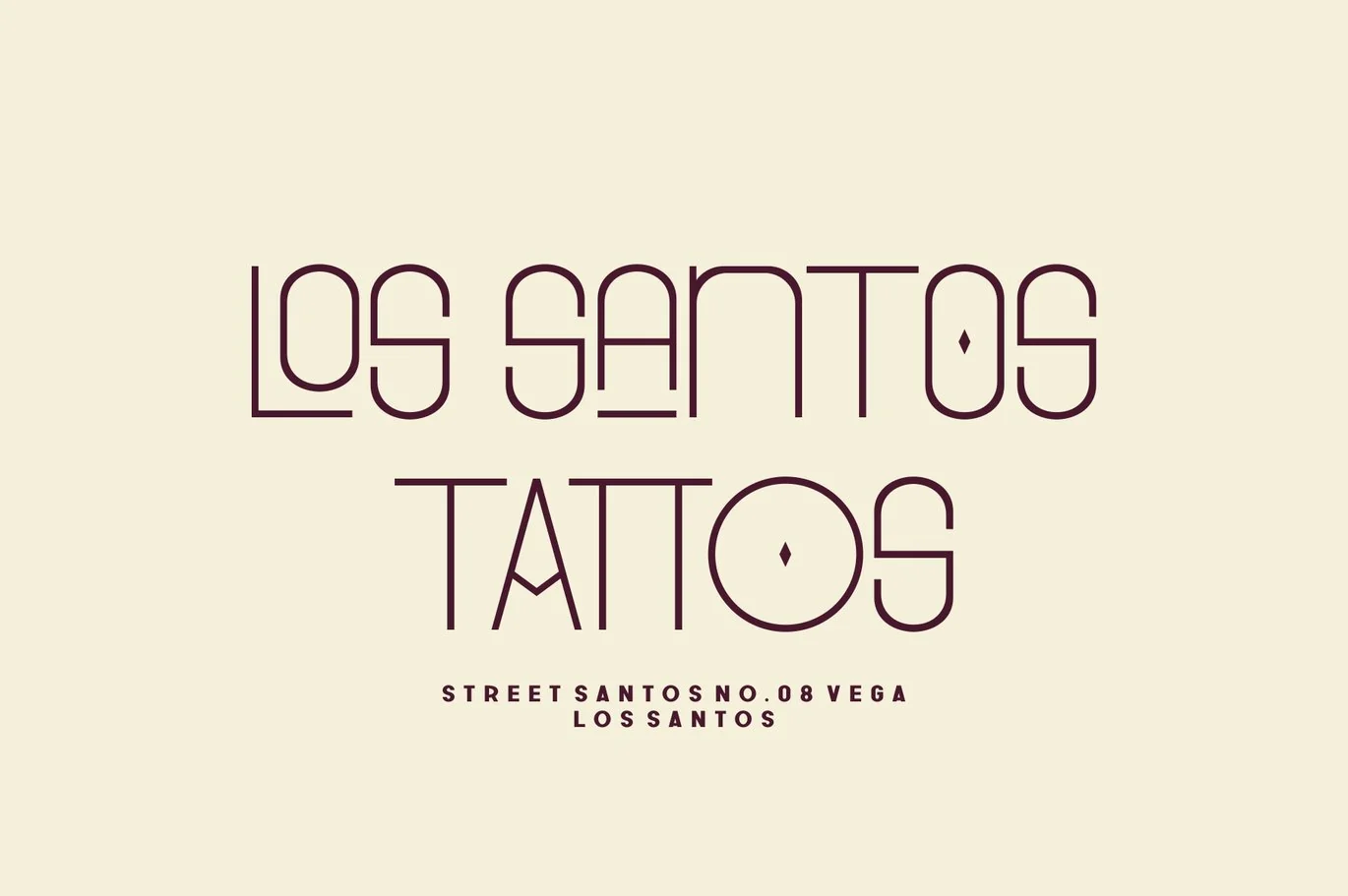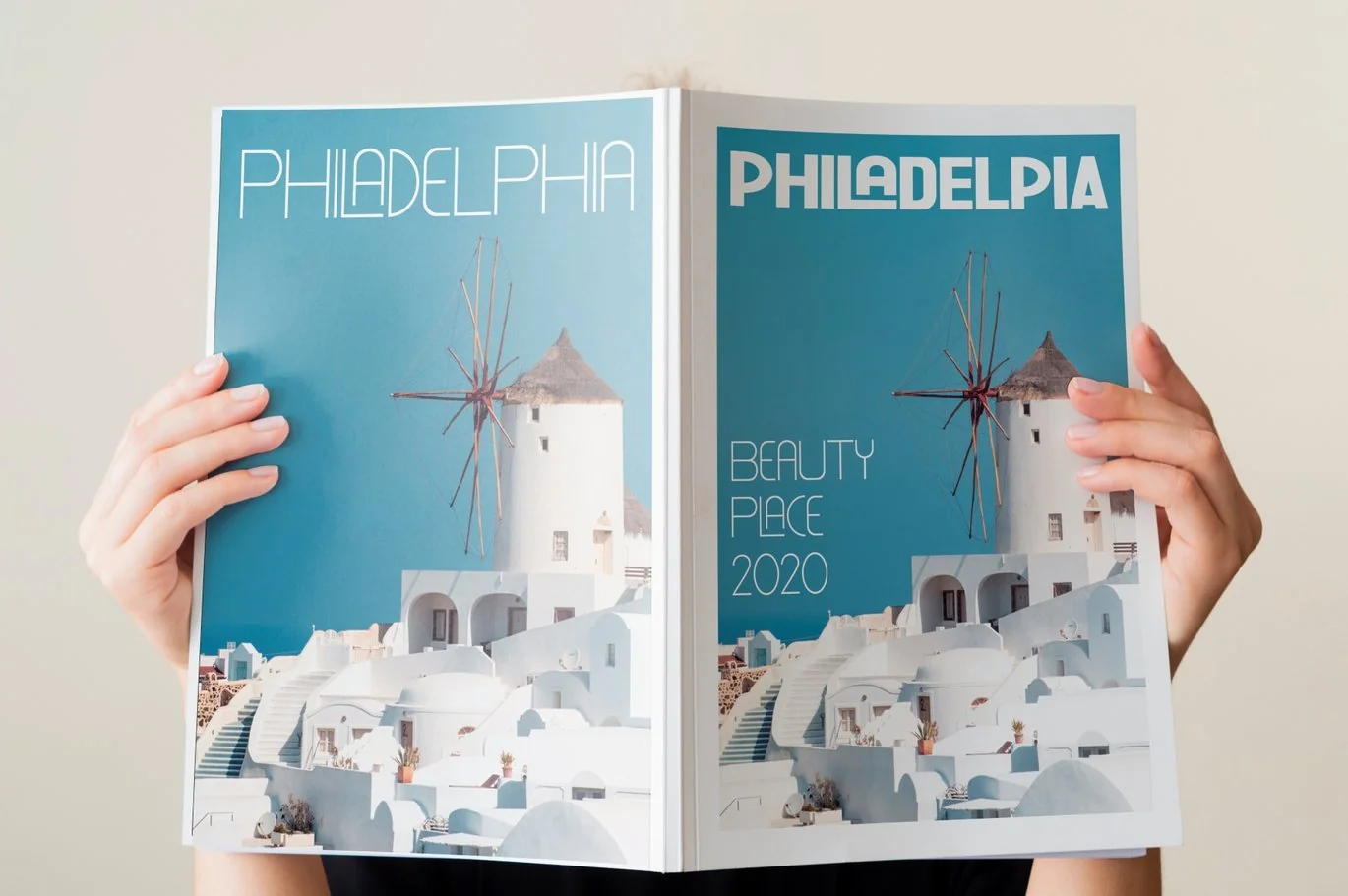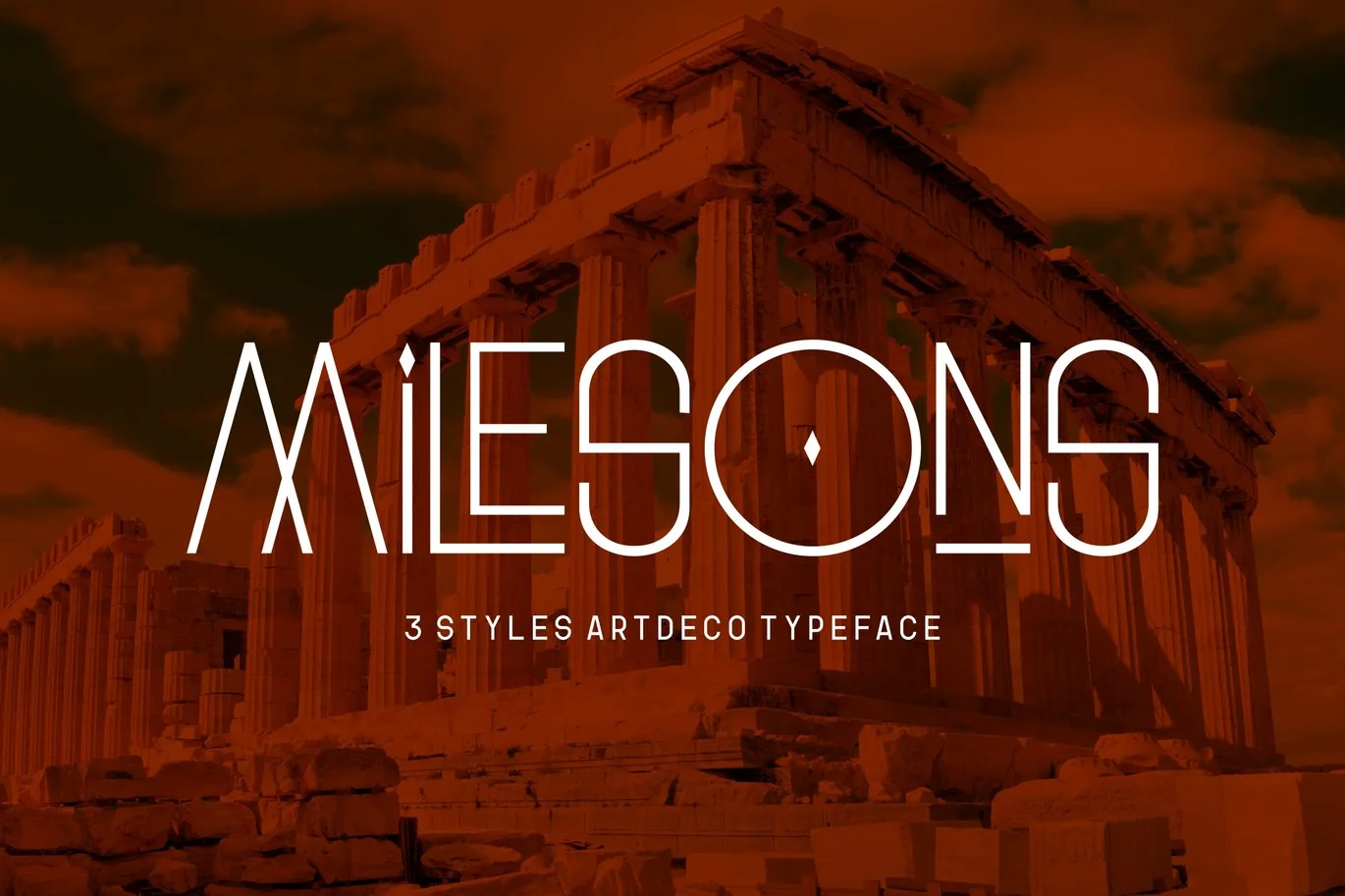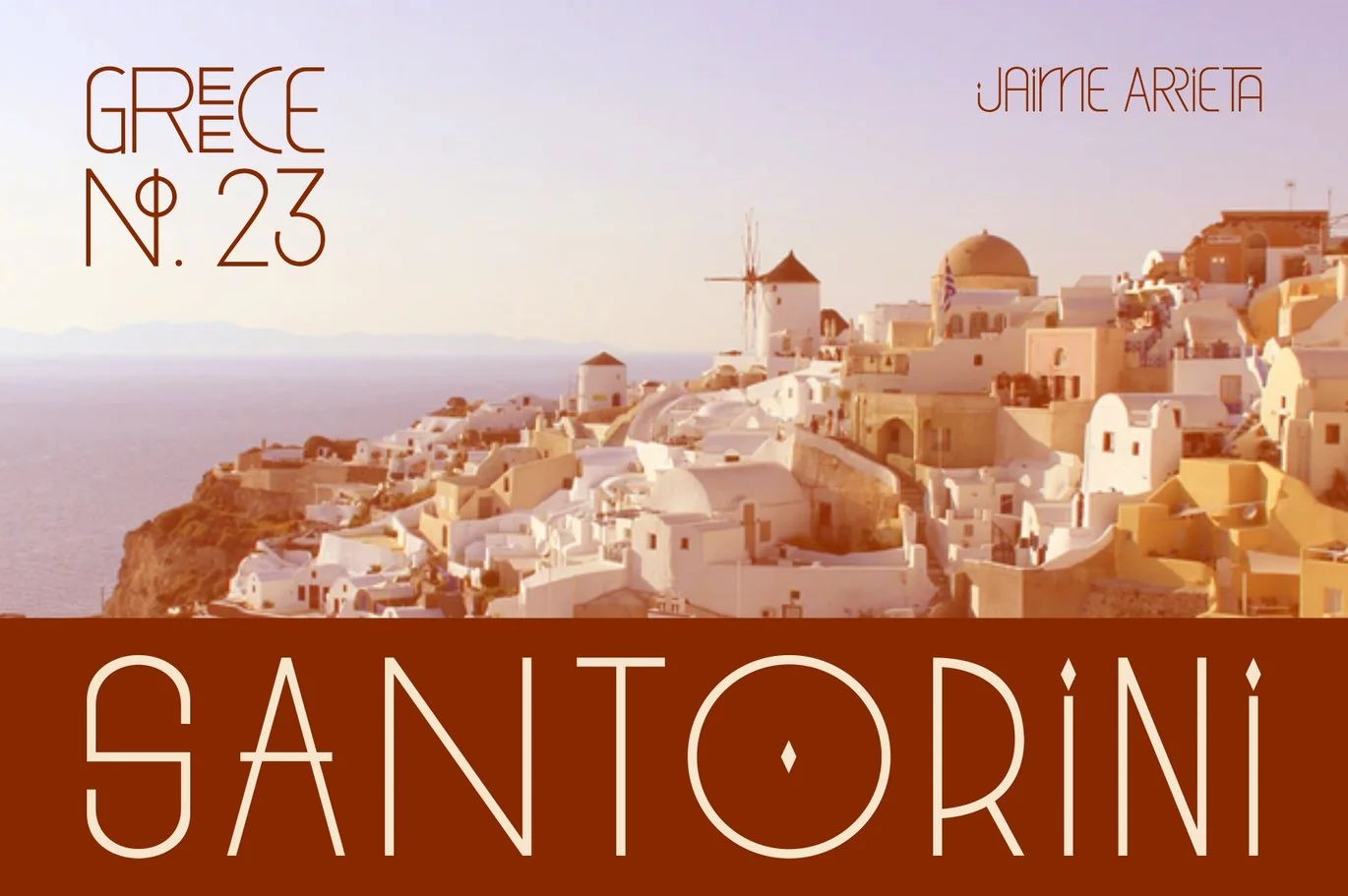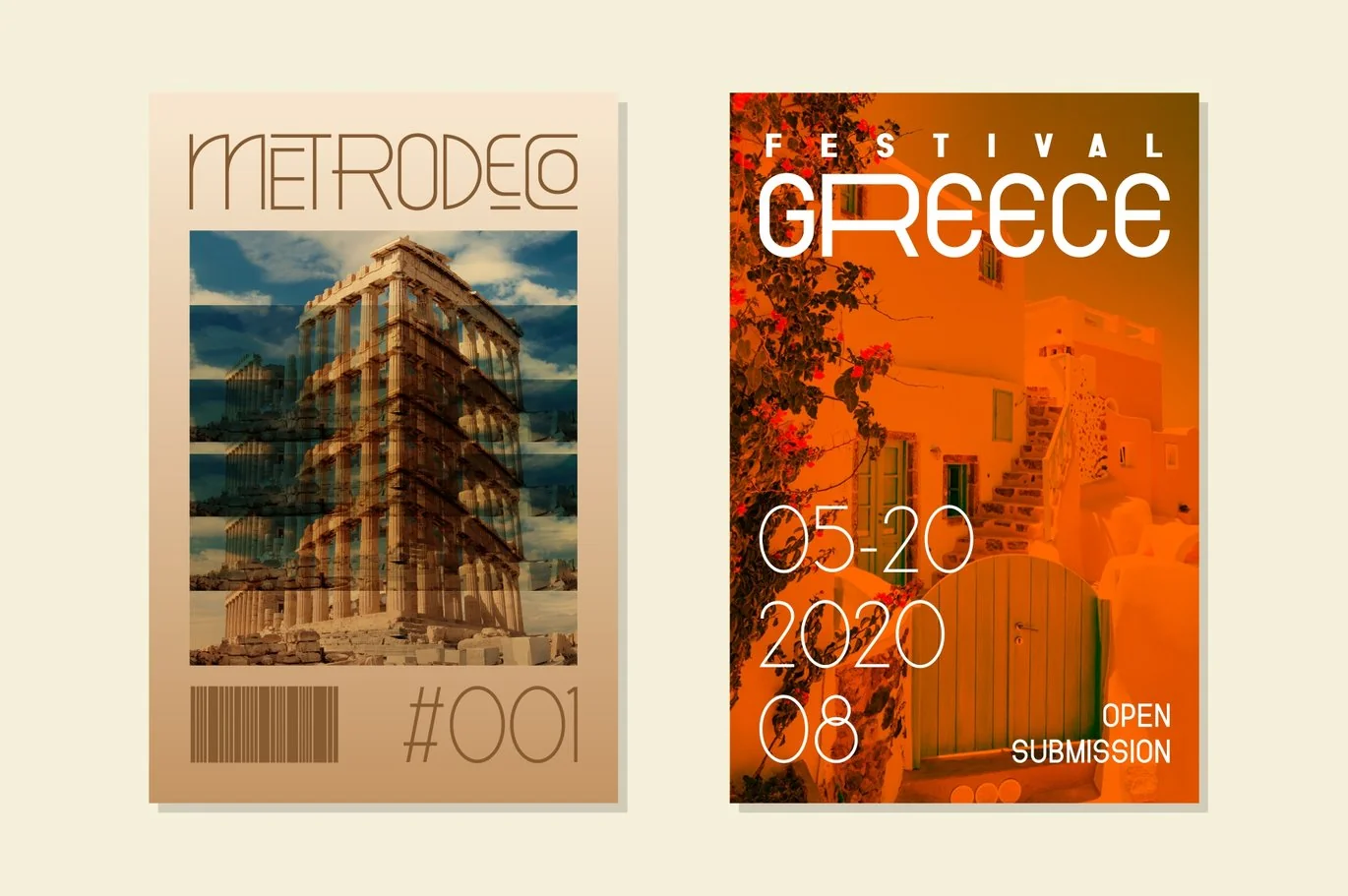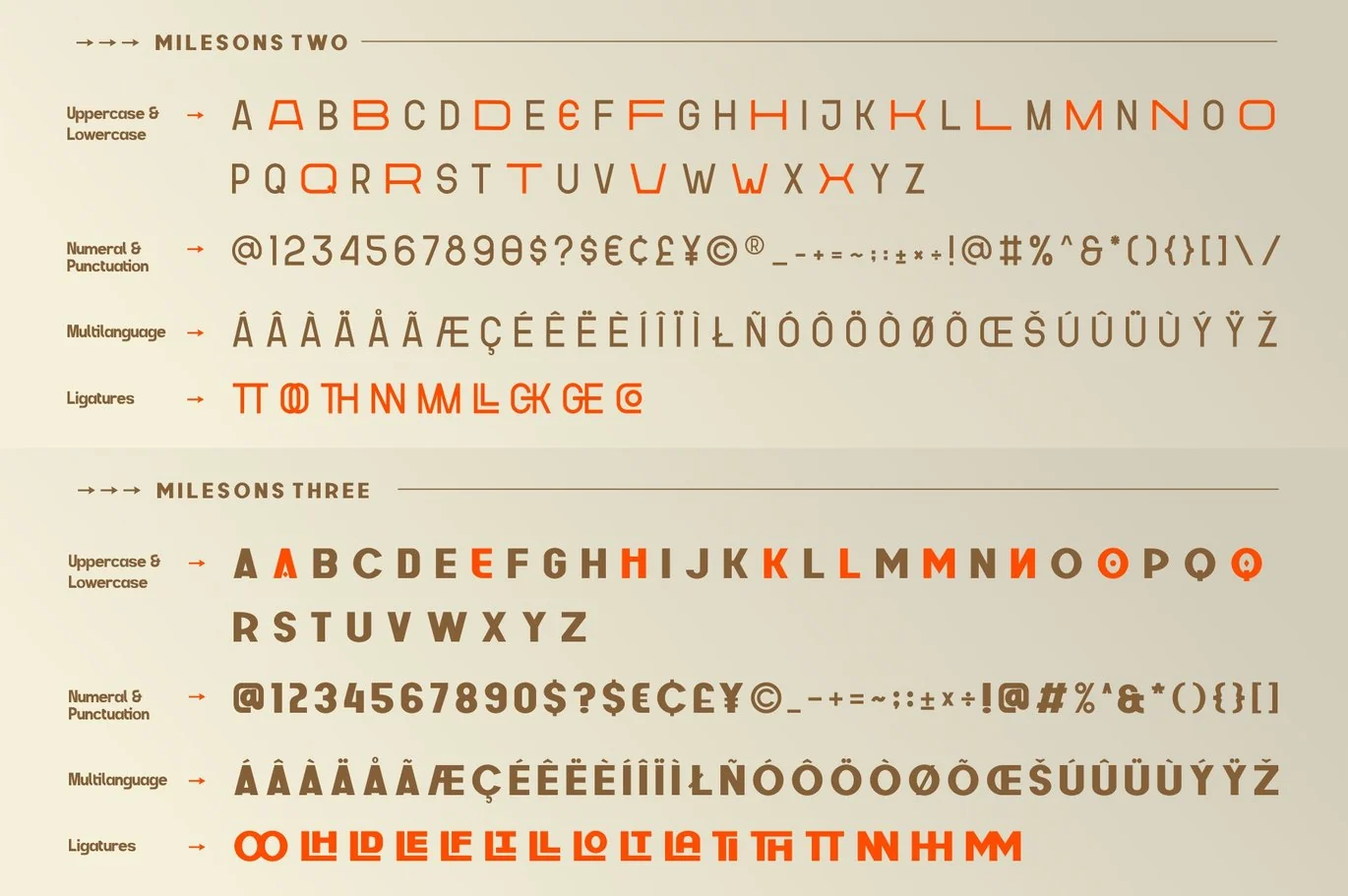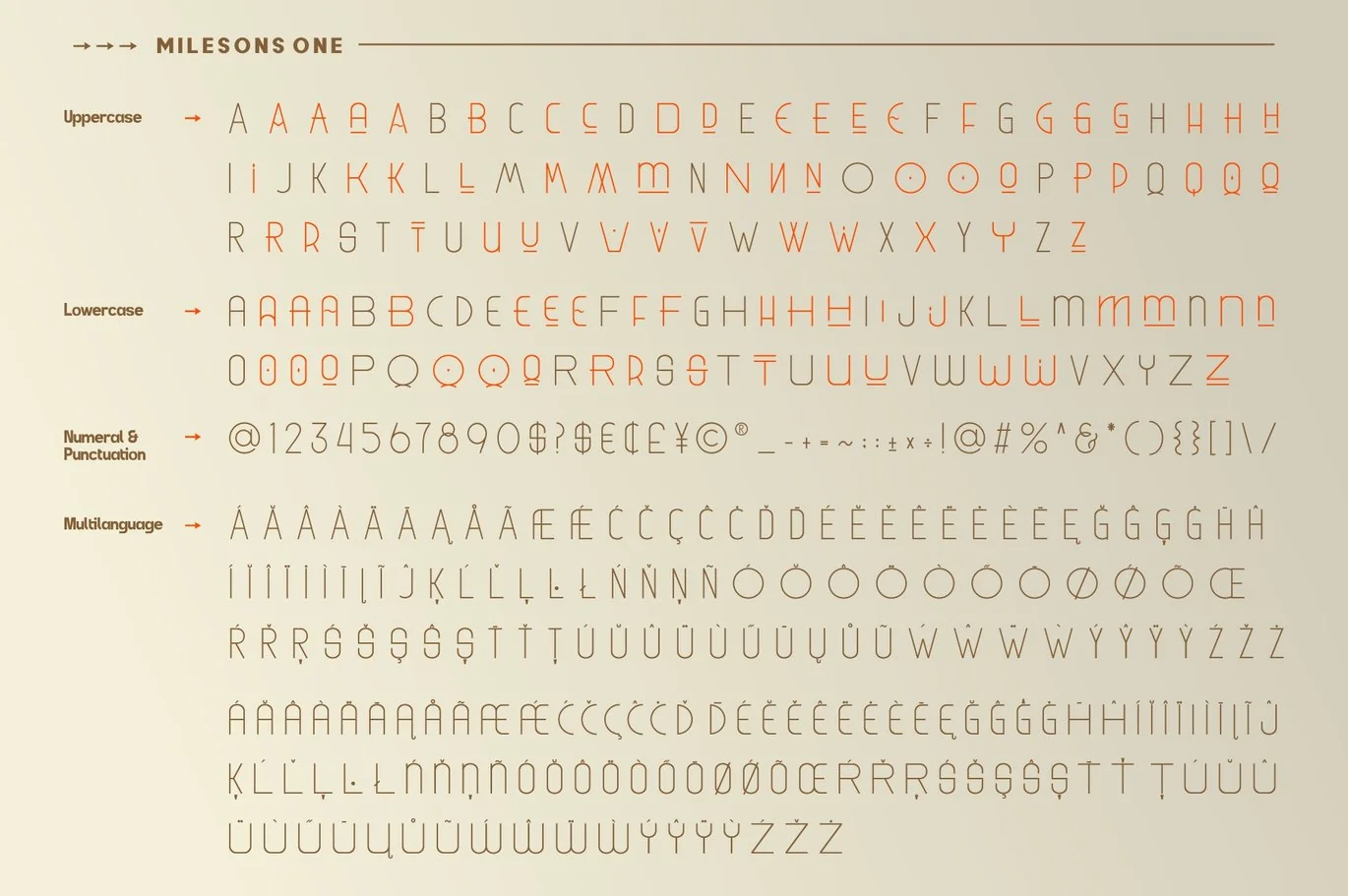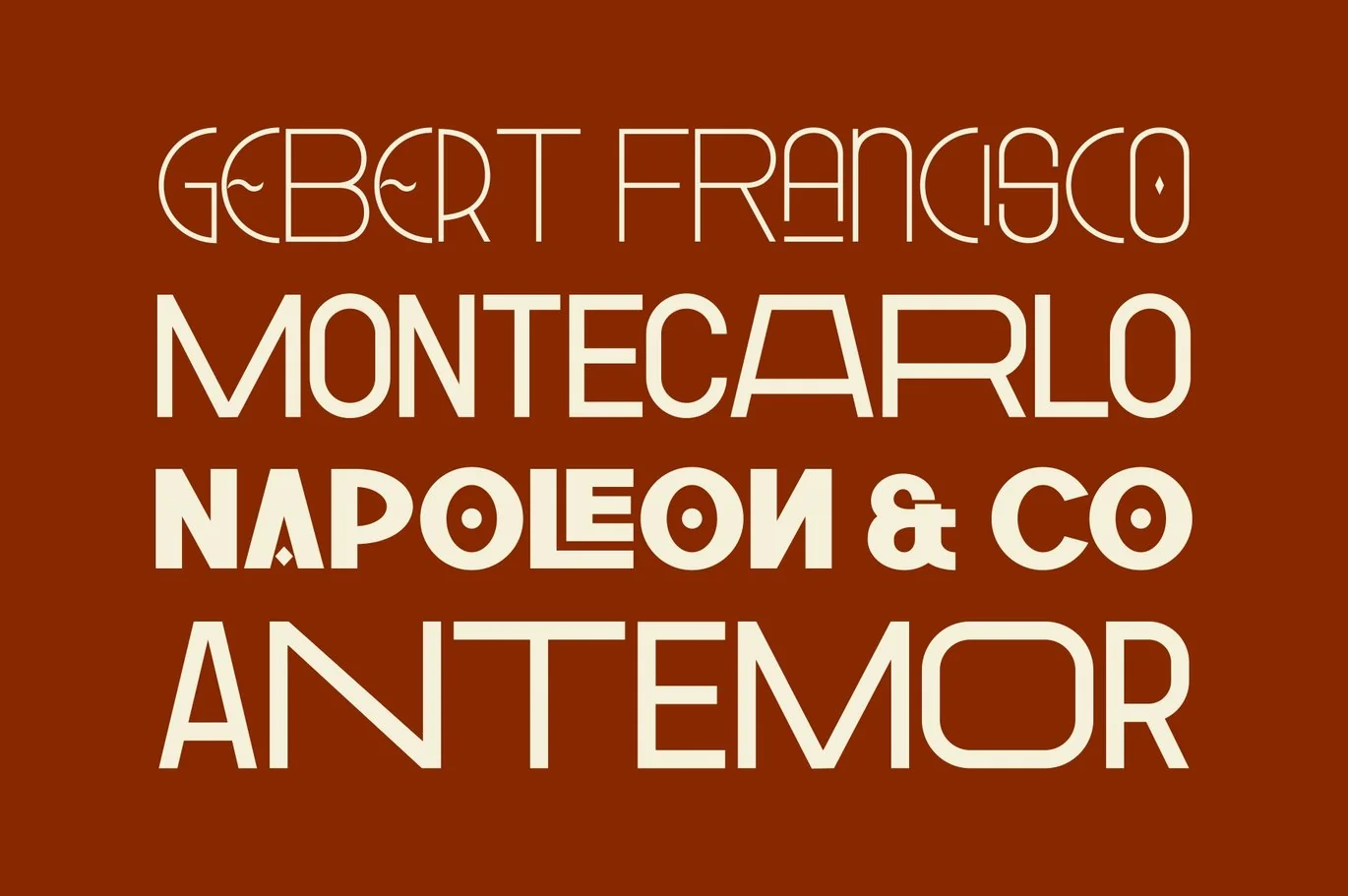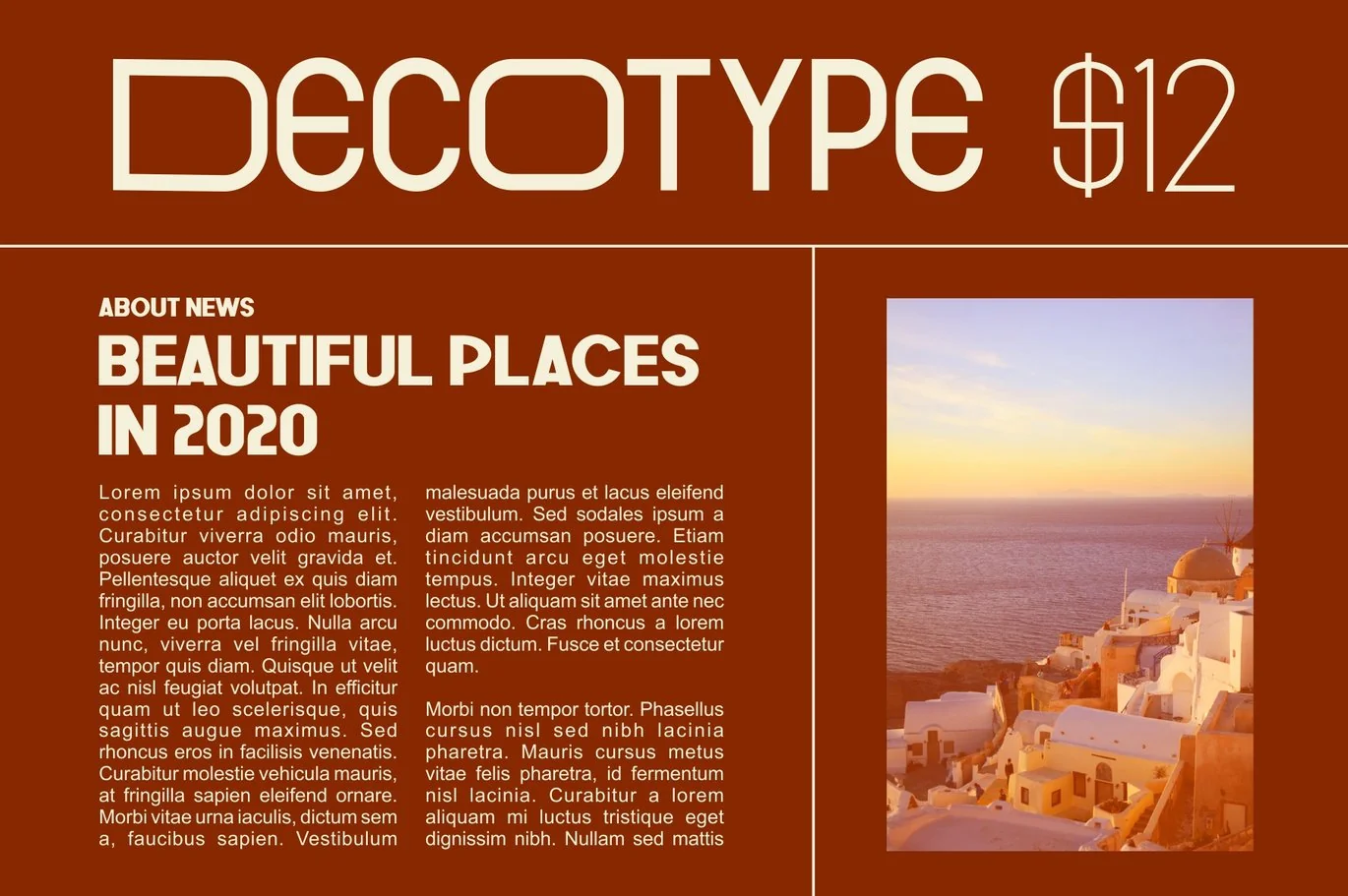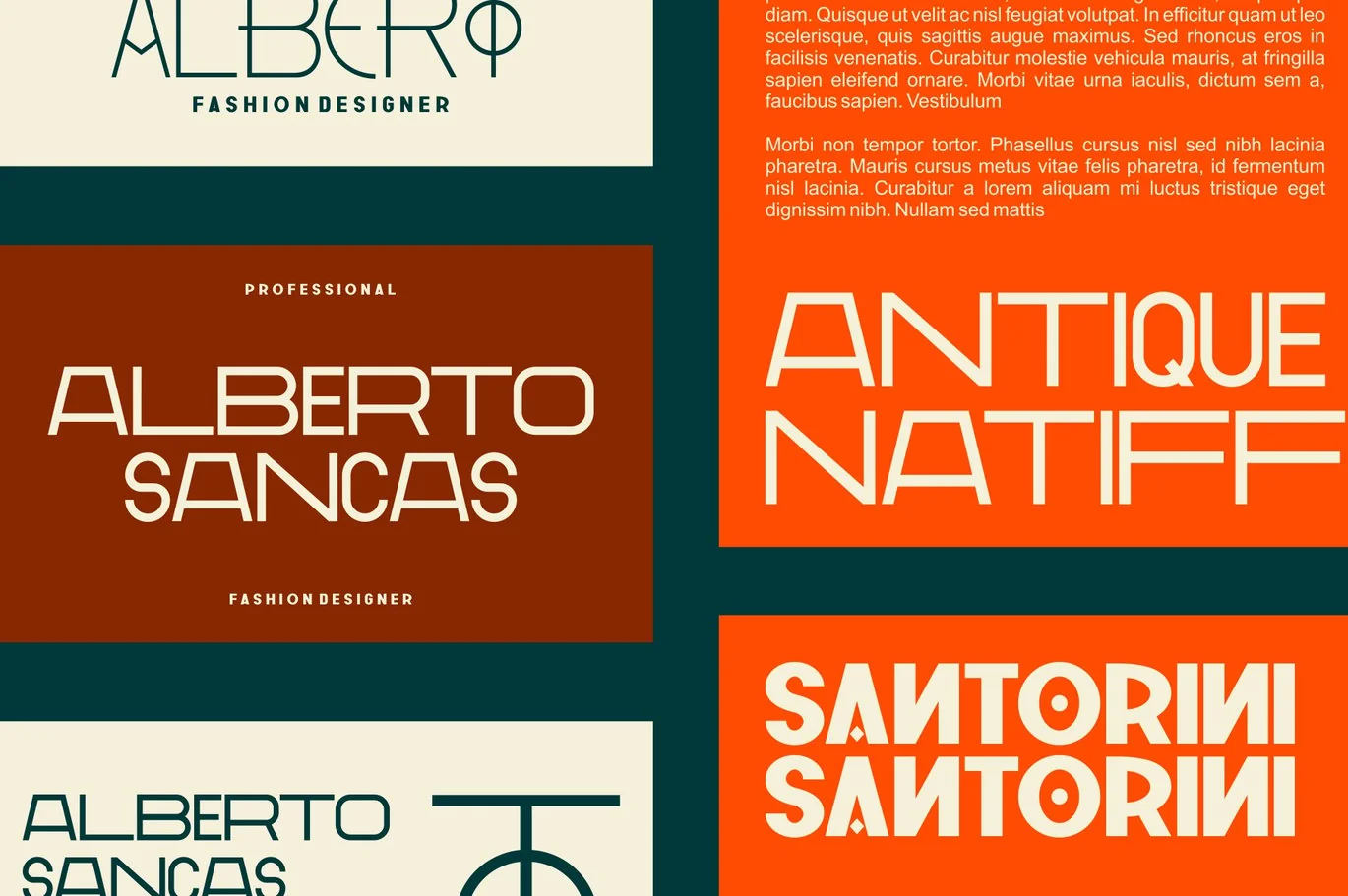
GR Milesons | Artdeco Typeface
Milesons is a very interesting font, which has been inspired by Art Deco art. It is formed from very careful lines with stylistic set and ligature features. Milesons has 300+ glyphs consisting of three styles: Milesons One, Milesons Two and Milesons Three.
Suitable for any graphic design projects, prints, logos, posters, t-shirts, packaging and applicable for some types of graphic design. Milesons is compatible with any software without any pain.
Milesons Features :
- Stylistic Set & Ligatures
- 300+ Characters
- Unique Ligatures
- Multi-Language Support with accent
- Numeral and Punctuations